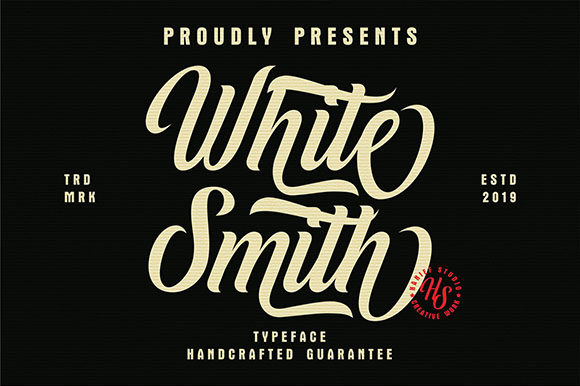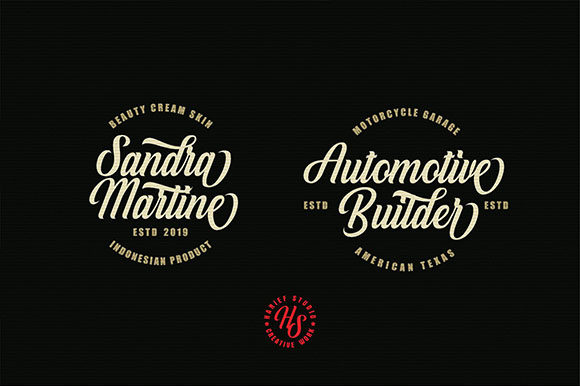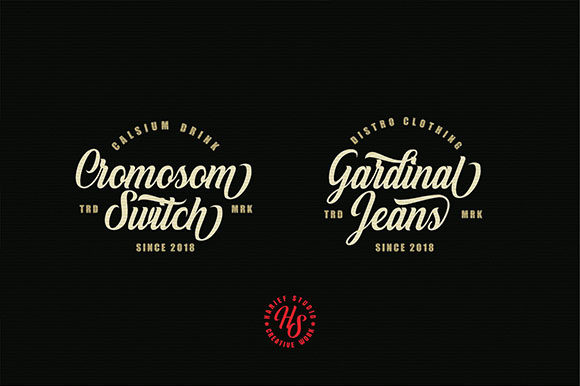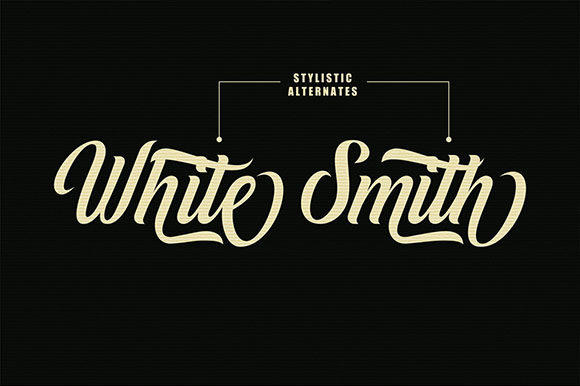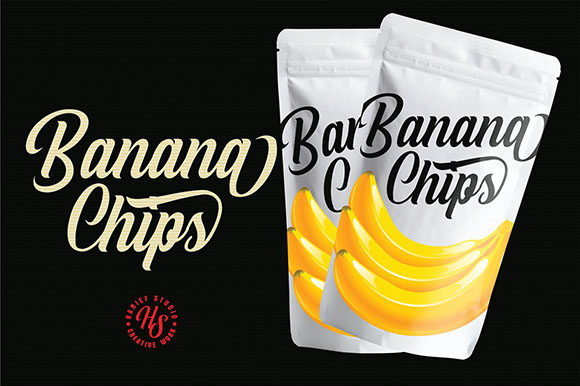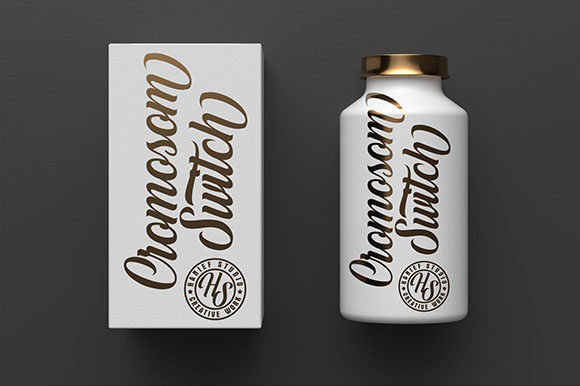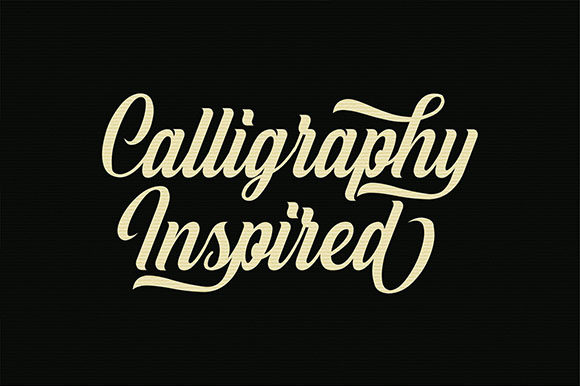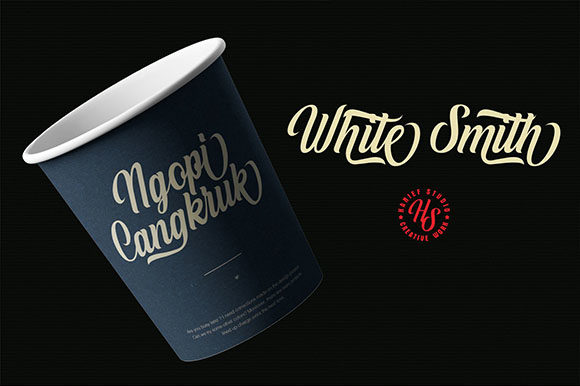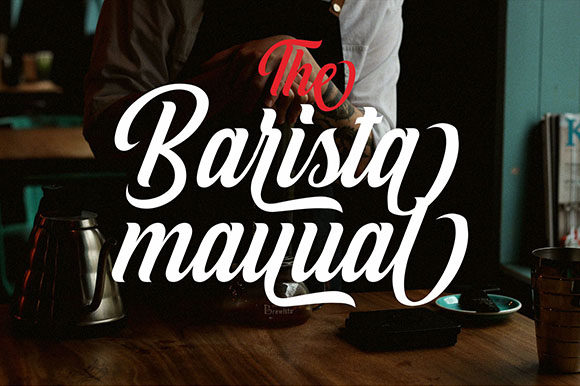
HomeScript FontsWhite Smith Font Script Fonts White Smith Font FacebookXPinterestWhatsApp White Smith Font Poster 2 White Smith Font Poster 3 White Smith Font Poster 4 White Smith Font Poster 5 White Smith Font Poster 6 White Smith Font Poster 7 White Smith Font Poster 8 White Smith Font Poster 9 About White Smith Font White Smith is a daring, original and playful script font that will turn any design idea into a true standout! DOWNLOAD ON CREATIVE FABRICAThis font is sold and delivered by Creative Fabrica. Font Canyon may earn a commission if you buy through this link. People also explored Before Font Circular Vines Dingbat Font Home Winter Font Shayfinton Font Pundak Baku Font Bodrum Slab Font Aesthetic Font Witch Font 309 0 TagsWhite Smith Font Previous articleThe Rollingstar FontNext articlePetricia Font LEAVE A REPLY Cancel reply Comment: Please enter your comment! Name:* Please enter your name here Email:* You have entered an incorrect email address! Please enter your email address here Website: Save my name, email, and website in this browser for the next time I comment. Personal Use Free BD Nokio Personal Use Free Read more about this font Girls Personal Use Free Read more about this font Talking on Personal Use Free Read more about this font Geracella Personal Use Free Read more about this font BLOG How to Cut Any Font on Cricut: Convert a Font to SVG (Free) Turn any font into a clean SVG so it cuts crisp on Cricut - a quick 3-step workflow using a free font-to-SVG tool. Where to Buy American Fonts Online in 2024 5 Fonts That Will Dominate Design Trends in 2026 Best Fonts for YouTube Videos: Make Your Thumbnails Stand Out